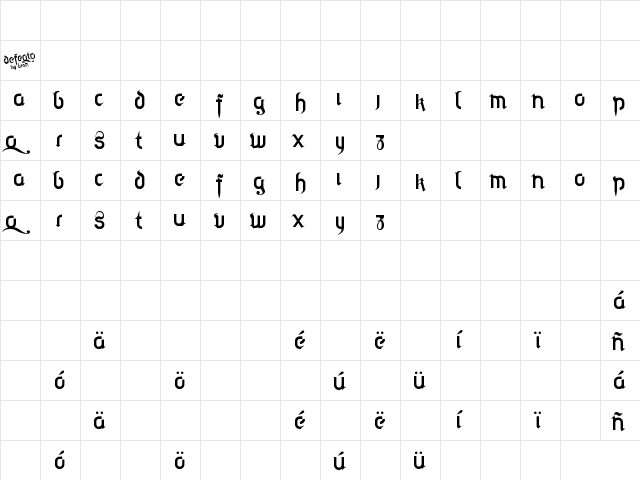
defecto Regular
Design Context for defecto Typeface
defecto is a composed and adaptable typeface that performs quietly and consistently across a wide range of design contexts.